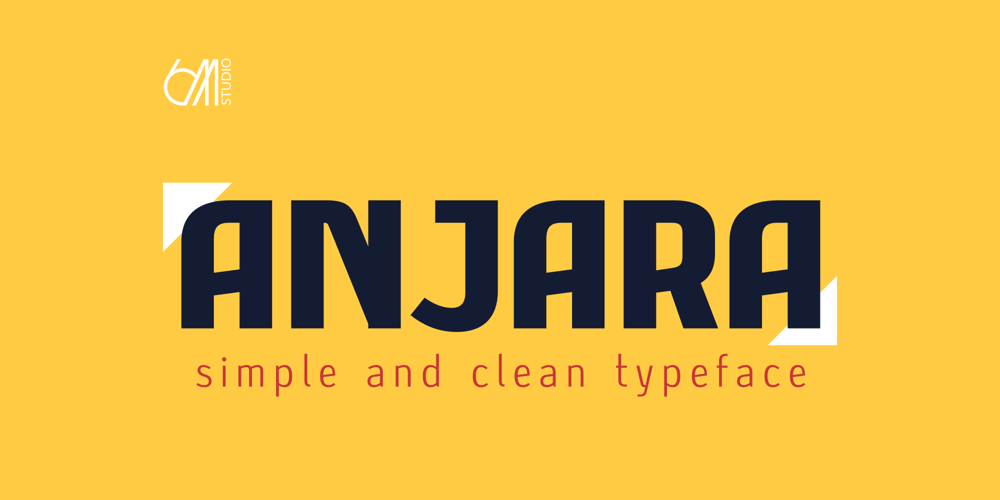
Anjara Font Family was designed by Rijal Muttaqin and published by 611 Studio. Anjara contains 9 styles and family package options. This typeface got its name from “anyar”, which means “new/modern” in local Indonesian (Javanese). Just like it’s name, this typeface gives a modern and simple look.Anjara’s medium contrast makes it easily stand out in any compositions, especially it’s bold version.